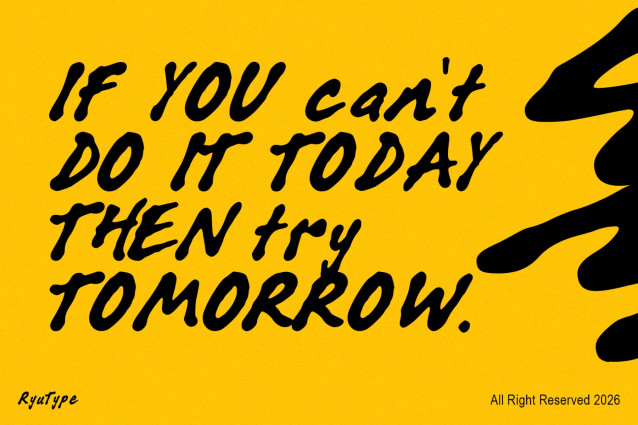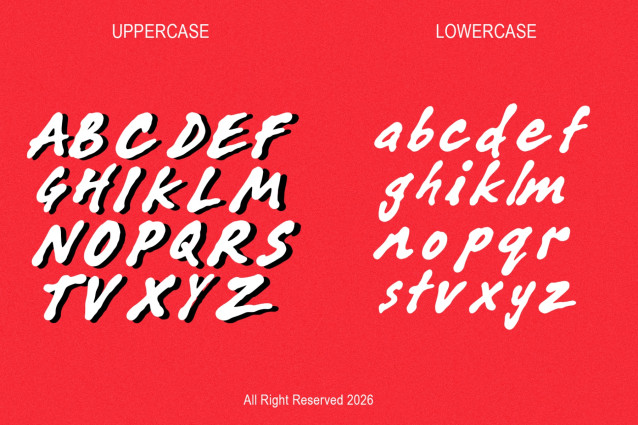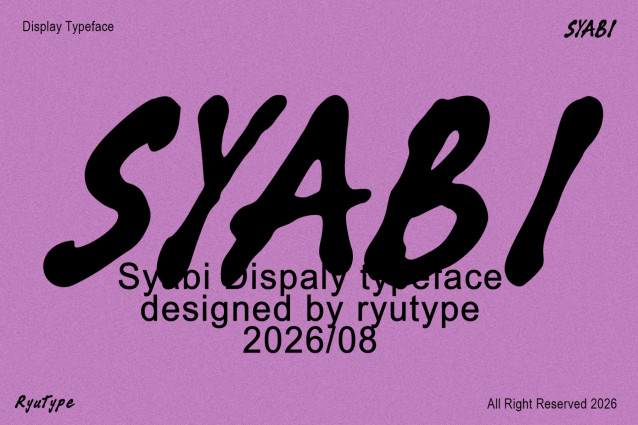
SYABI is a bold and expressive brush display type inspired by spontaneous handwritten lettering. It features fluid strokes, organic curves, dynamic movement, and a raw hand-painted feel — perfect for logos, posters, branding, packaging, apparel, album covers, and modern creative projects.
SYABI DISPLAY FONT